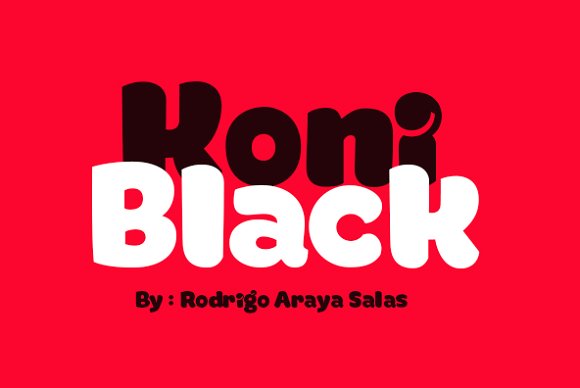
Step into the realm of visual elegance with Koniblack, a display font family that will captivate your audience with its bold and expressive strokes. Crafted by the maestro Rodrigo Typo, Koniblack is not just a collection of fonts; it's an invitation to unleash your creativity and make an unforgettable impact.
Koniblack Regular exudes a sense of effortless sophistication, its sharp angles and clean curves combining to create a typeface that is both modern and timeless. Let your words dance across the digital canvas with Koniblack Italic, its graceful slants adding a touch of intrigue and movement. For a statement with a touch of edge, look no further than Koniblack Bold, its thick strokes demanding attention while retaining a touch of refinement.
But the allure of Koniblack doesn't stop there. Koniblack Outline offers a unique twist, its hollowed letters creating a sense of depth and intrigue. And for those seeking a touch of whimsy, Koniblack Shadow casts an ethereal glow upon your designs, adding a captivating dimension to your typography.
Welcome to the world of Koniblack, where your words will take on a life of their own. Whether you're crafting captivating headlines, mesmerizing logos, or enchanting social media posts, Koniblack will elevate your designs to new heights. Embrace the power of visual storytelling and leave an indelible mark on your audience.